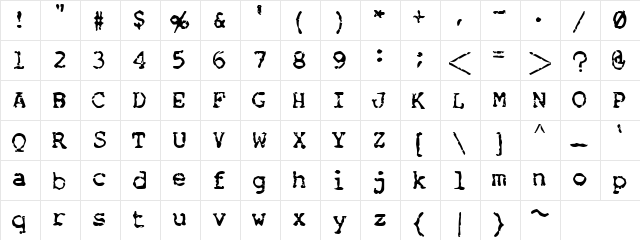
Nose Bleed Regular Font Preview
Nose Bleed Regular
Design Context for Nose Bleed Typeface
Nose Bleed is a composed and adaptable typeface that performs quietly and consistently across a wide range of design contexts.